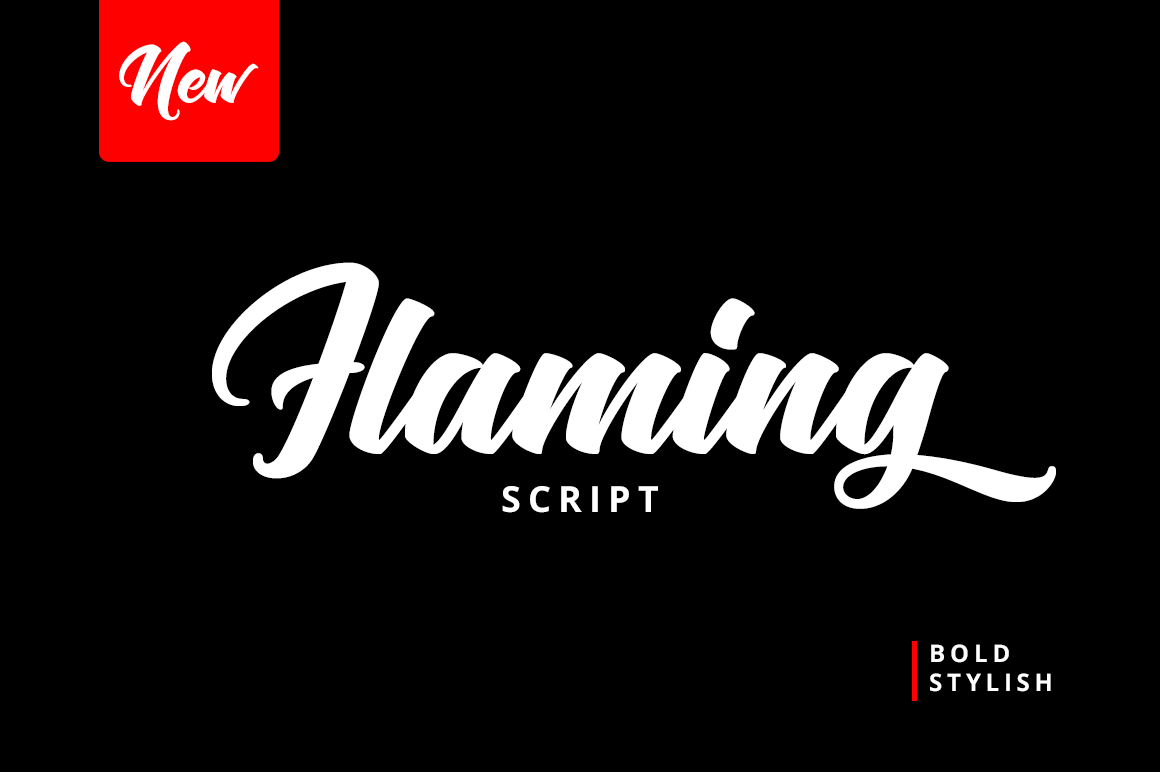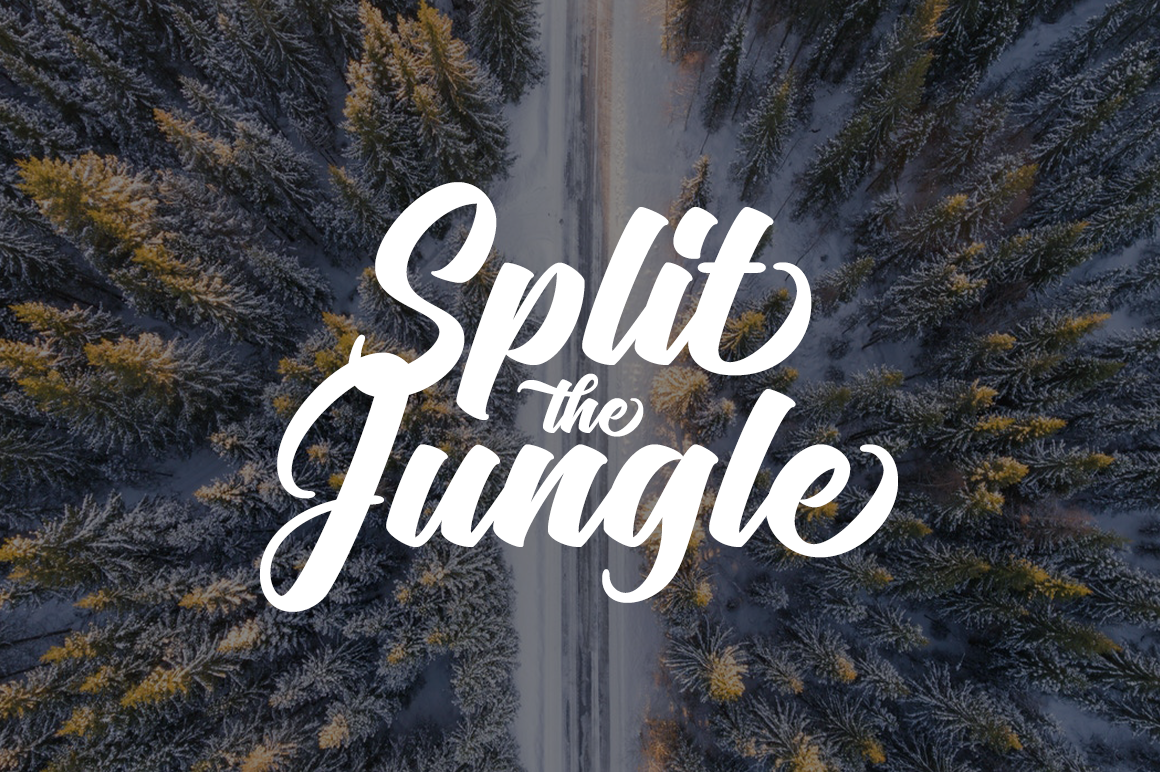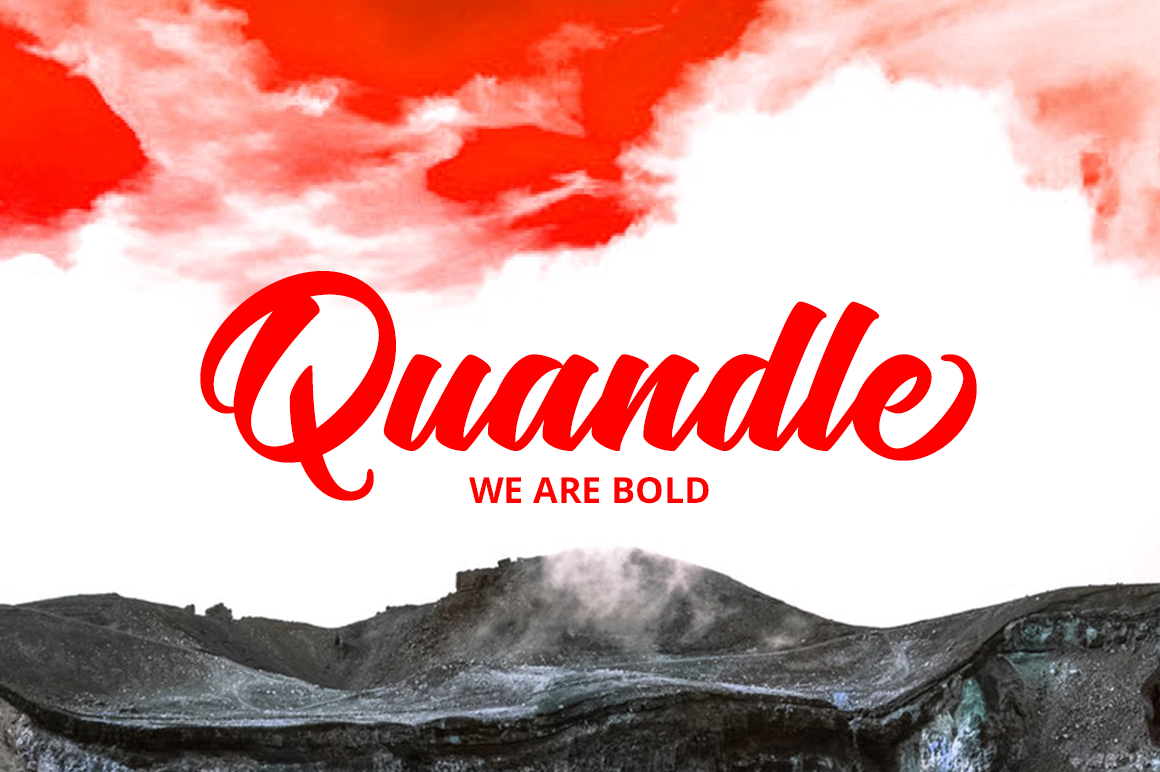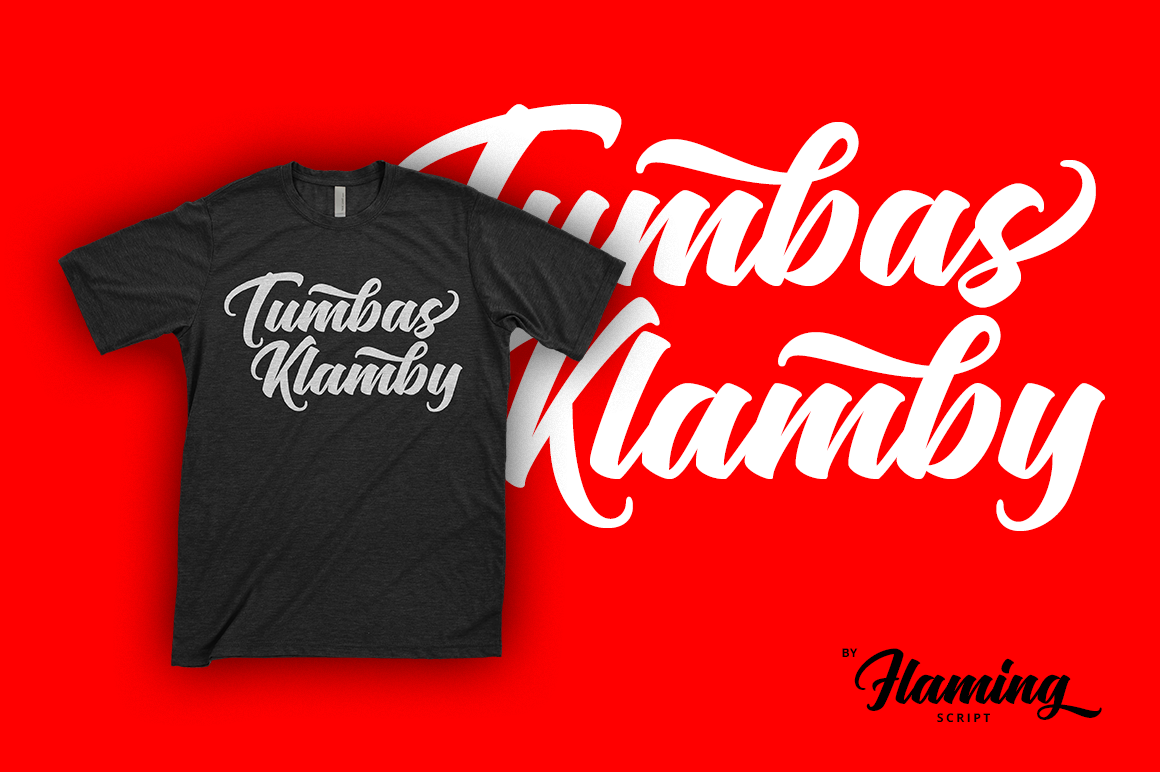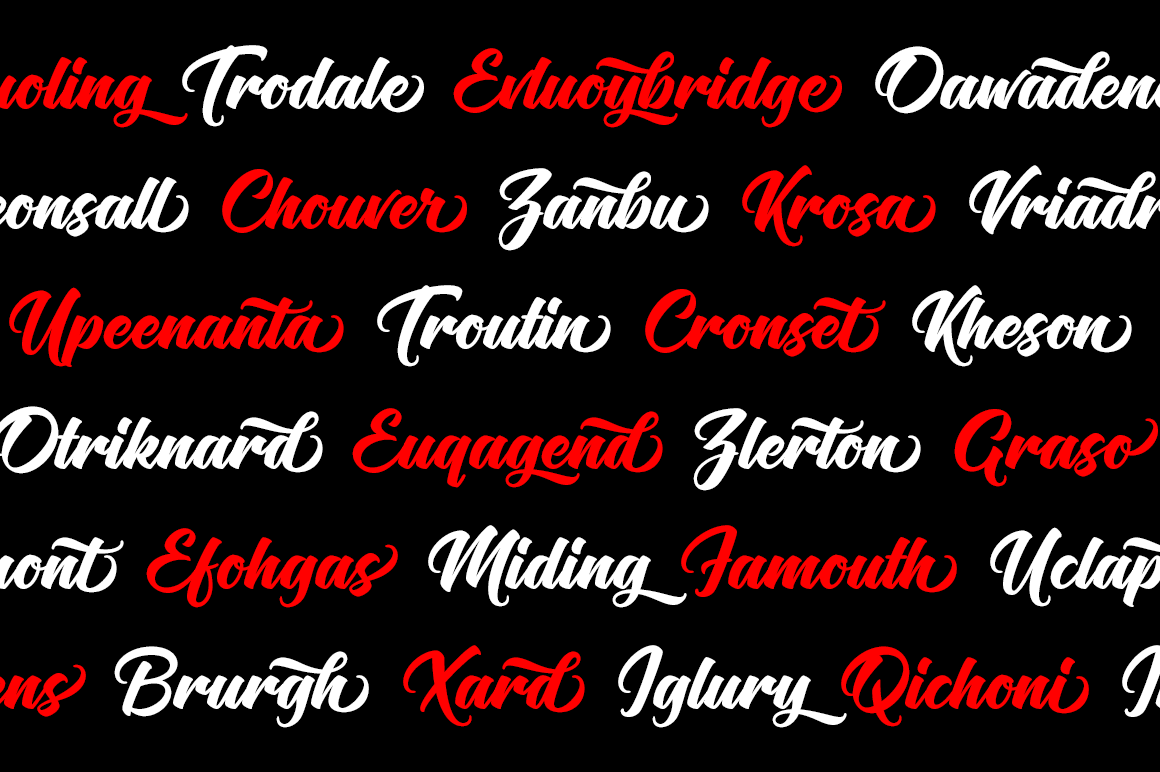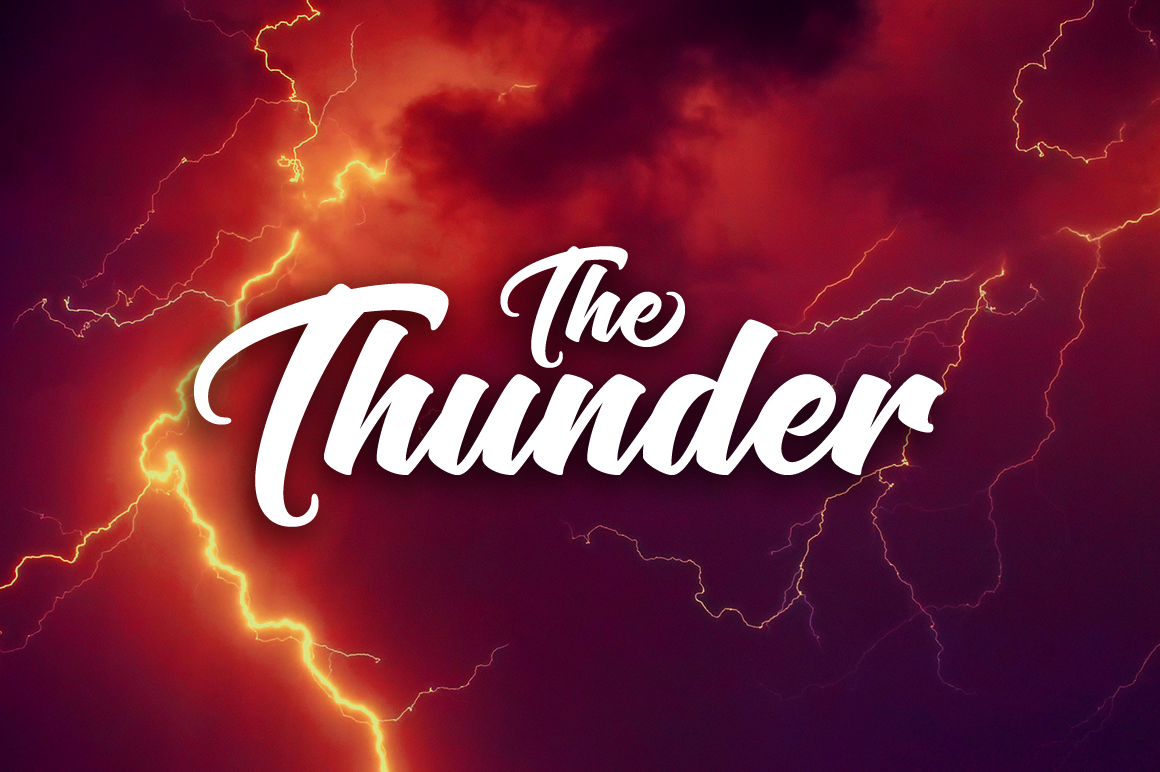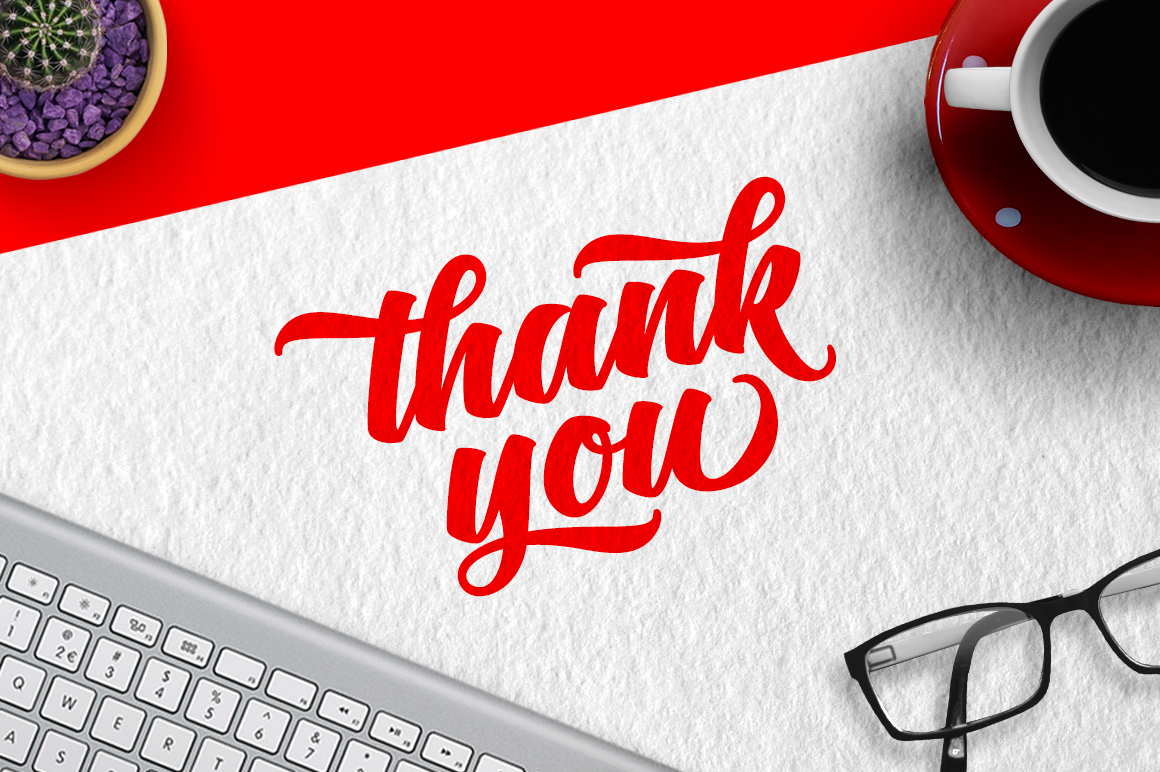
Flaming Script Font
Flaming Script is a bold, styling handwritten font. It can be used for a huge range of different projects and will add a unique look & feel to your text.
Even though it has bold letters, Flaming Script is very legible which makes it the perfect font for logo’s, headlines, apparel and much, much more!